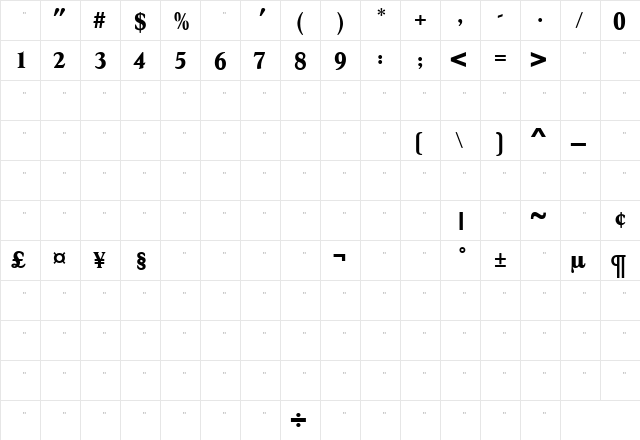
HessOSExBoldTab Regular
Design Context for HessOSExBoldTab Typeface
HessOSExBoldTab is a composed and adaptable typeface that performs quietly and consistently across a wide range of design contexts. Its bold stroke weight gives it real presence on the page.